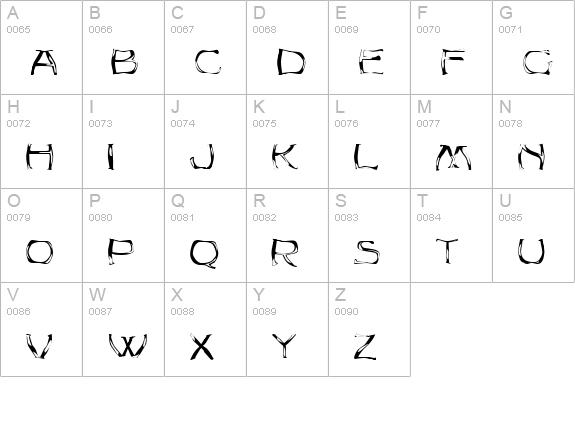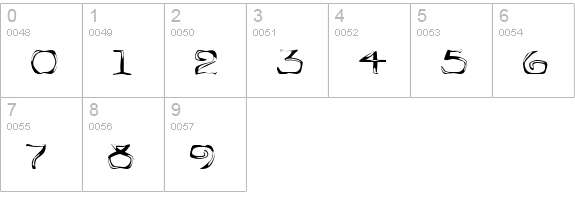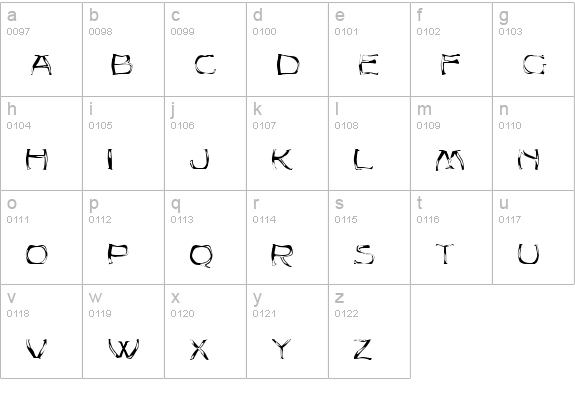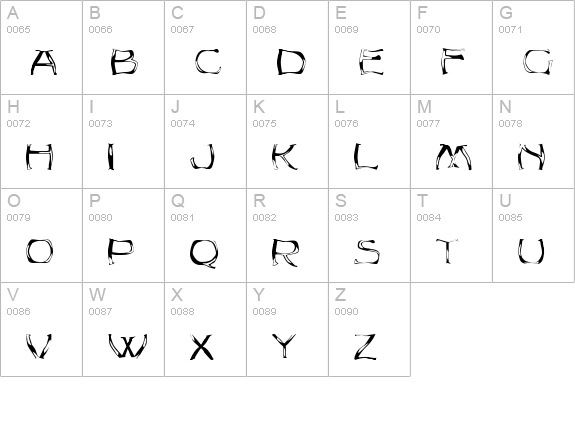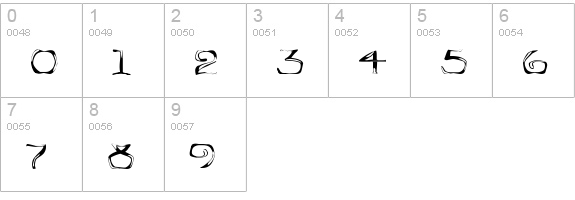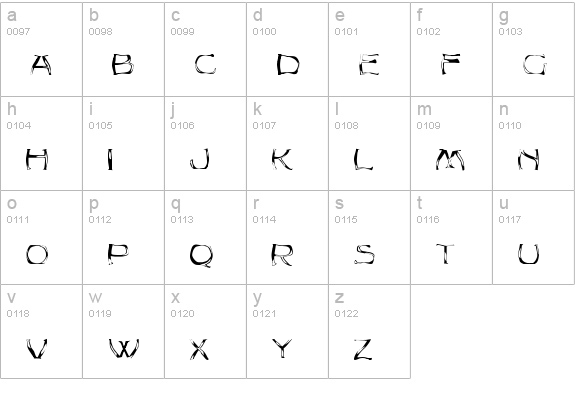
Stonehenge Font Details
Stonehenge font is a majestic and ancient typeface inspired by the mysterious stone circle in England. With its bold and prominent lettering, this font encapsulates the timeless aura of Stonehenge, evoking a sense of history and wonder. The Stonehenge font is perfect for projects that require a touch of mystique and grandeur, making it ideal for titles, headlines, and branding. What's even better is that Stonehenge font is available for free download at FontsMarket.com. Embrace the power and allure of Stonehenge with this captivating font that will elevate your designs to new heights. Download it today and let your creativity soar with this unique and awe-inspiring typeface.